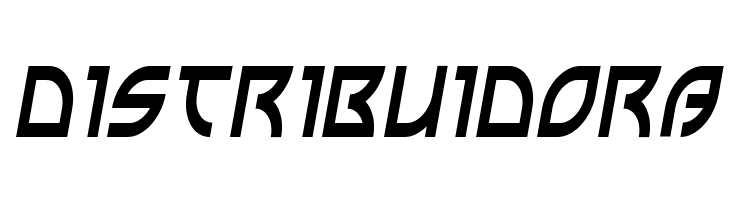
TheStamshonsDemo-regular Font
- Font: TheStamshonsDemo-regular
A bold, futuristic font with angular, geometric shapes and a dynamic style.
( Fonts by Uddi Uddi )